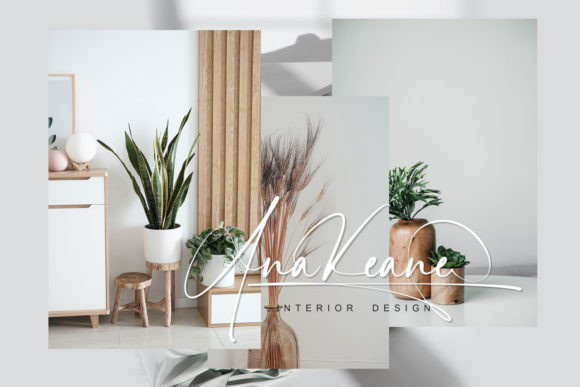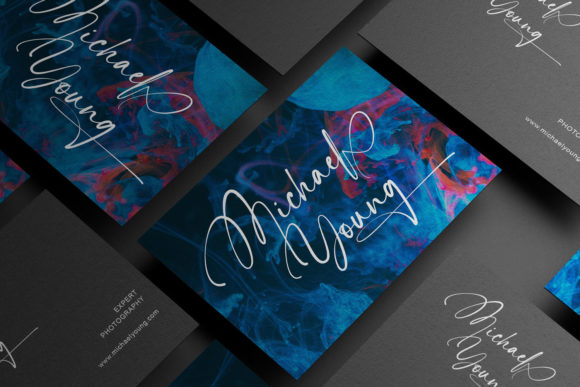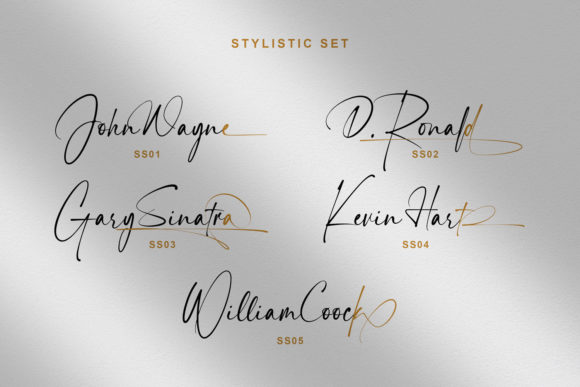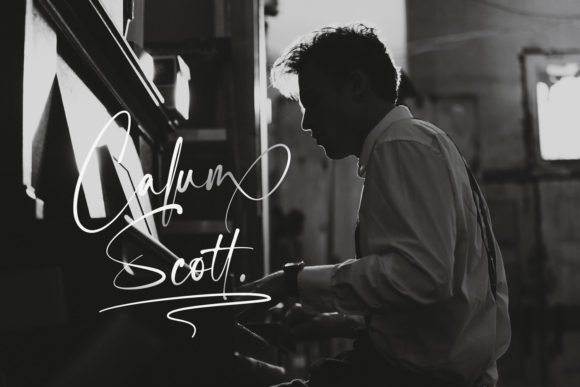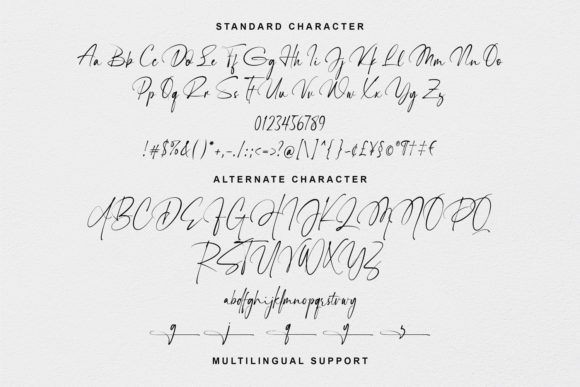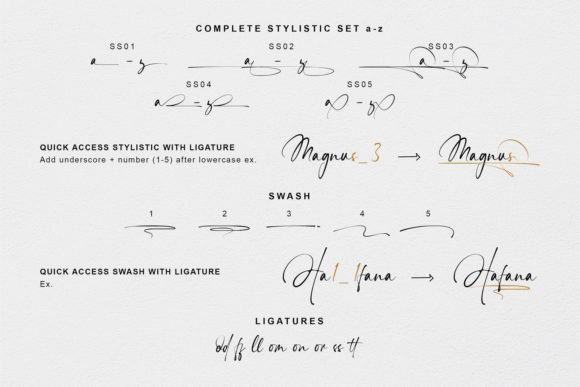
Introduction to Sign Rathi Font
Sign Rathi is a cursive and thin lettered script font.
This font is PUA encoded which means you can access all of the glyphs and swashes with ease Fall for its ravishing style and use it to create gorgeous designs.
Key Features of Sign Rathi Font
Why Choose Sign Rathi Font?